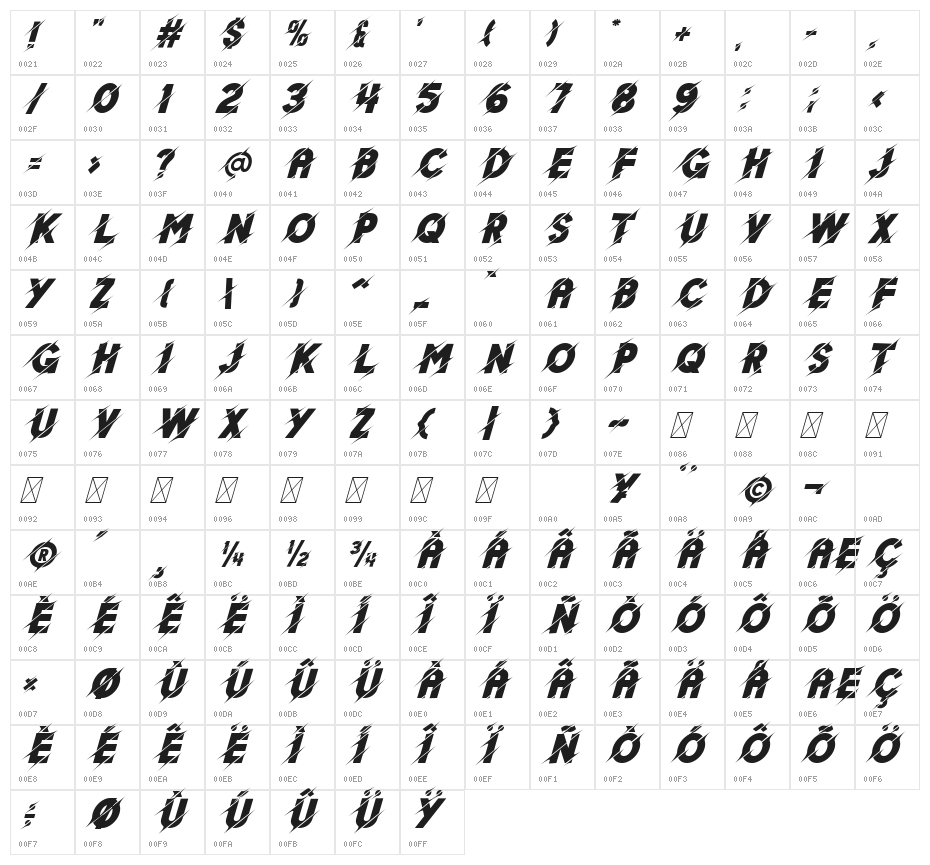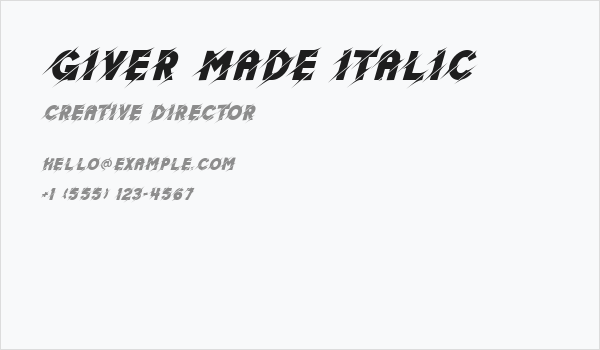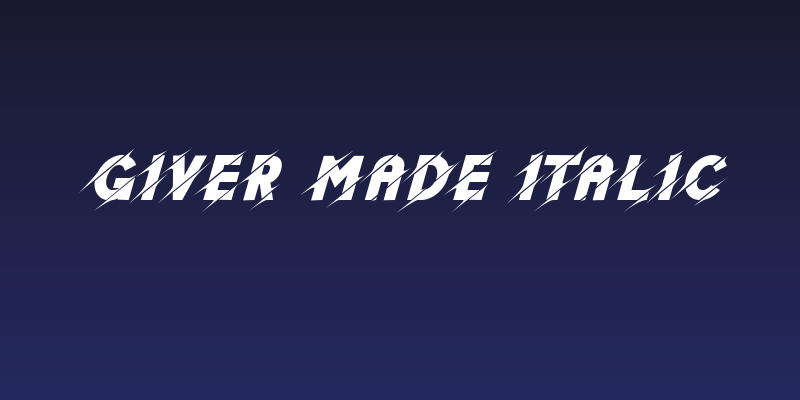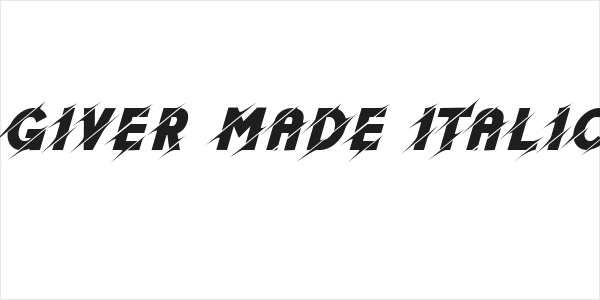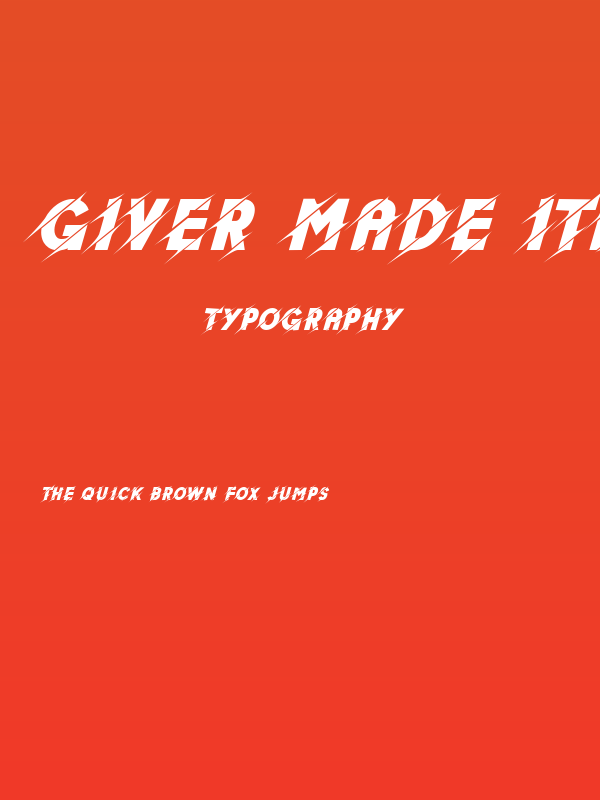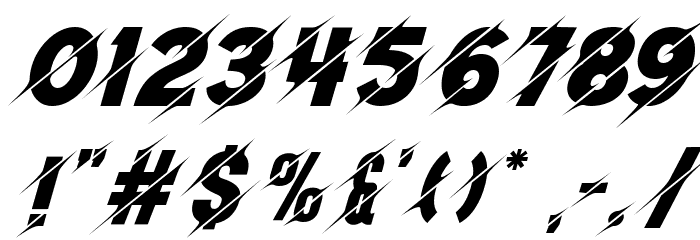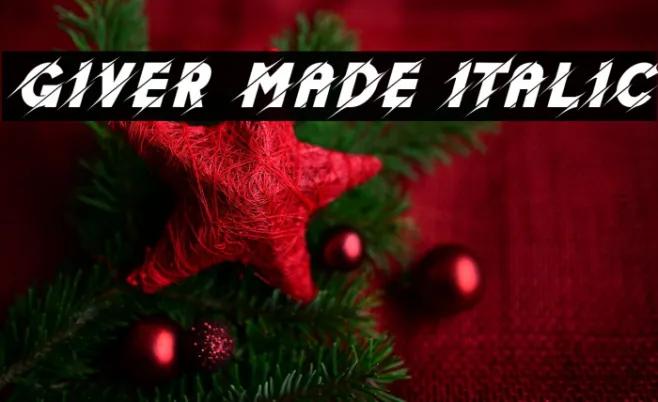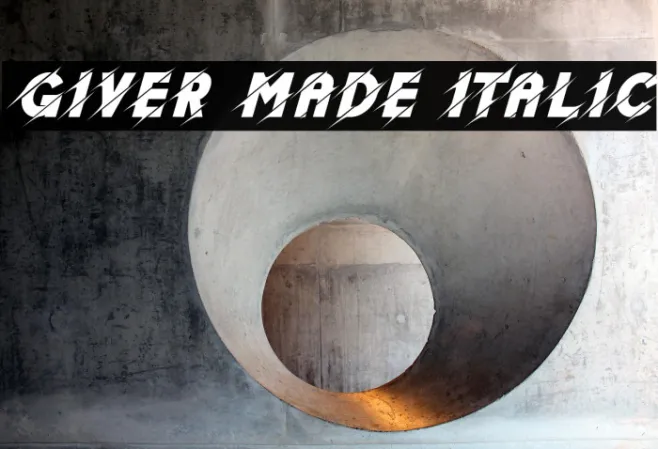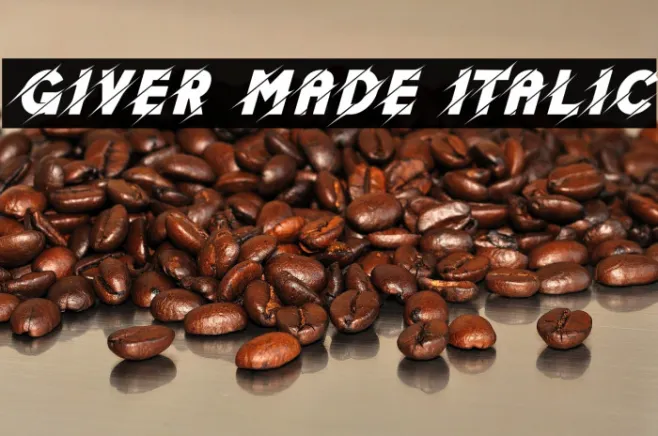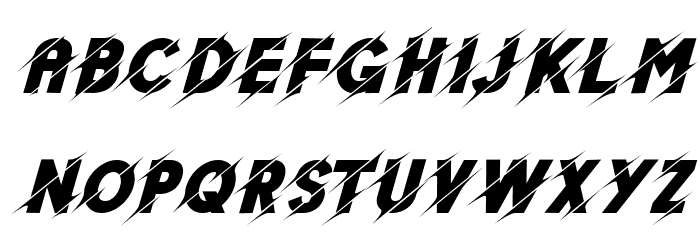
Giver Made Italic Font
Giver Made Italic Description
This dynamic and bold font features a striking italic style with sharp, angular edges and a sense of movement. The letters are heavily slanted, creating a sense of speed and urgency. The strokes are thick and consistent, providing a strong visual impact. The font's aggressive and modern design makes it suitable for projects that require a bold statement. The characters are tightly spaced, enhancing the compact and energetic feel. The numbers and special characters maintain the same bold and slanted style, ensuring consistency across all elements.
| Use Case | Logos, Headlines, Posters |
| Proposed Projects | Ideal for sports branding, action movie posters, dynamic logos, and edgy graphic designs. |